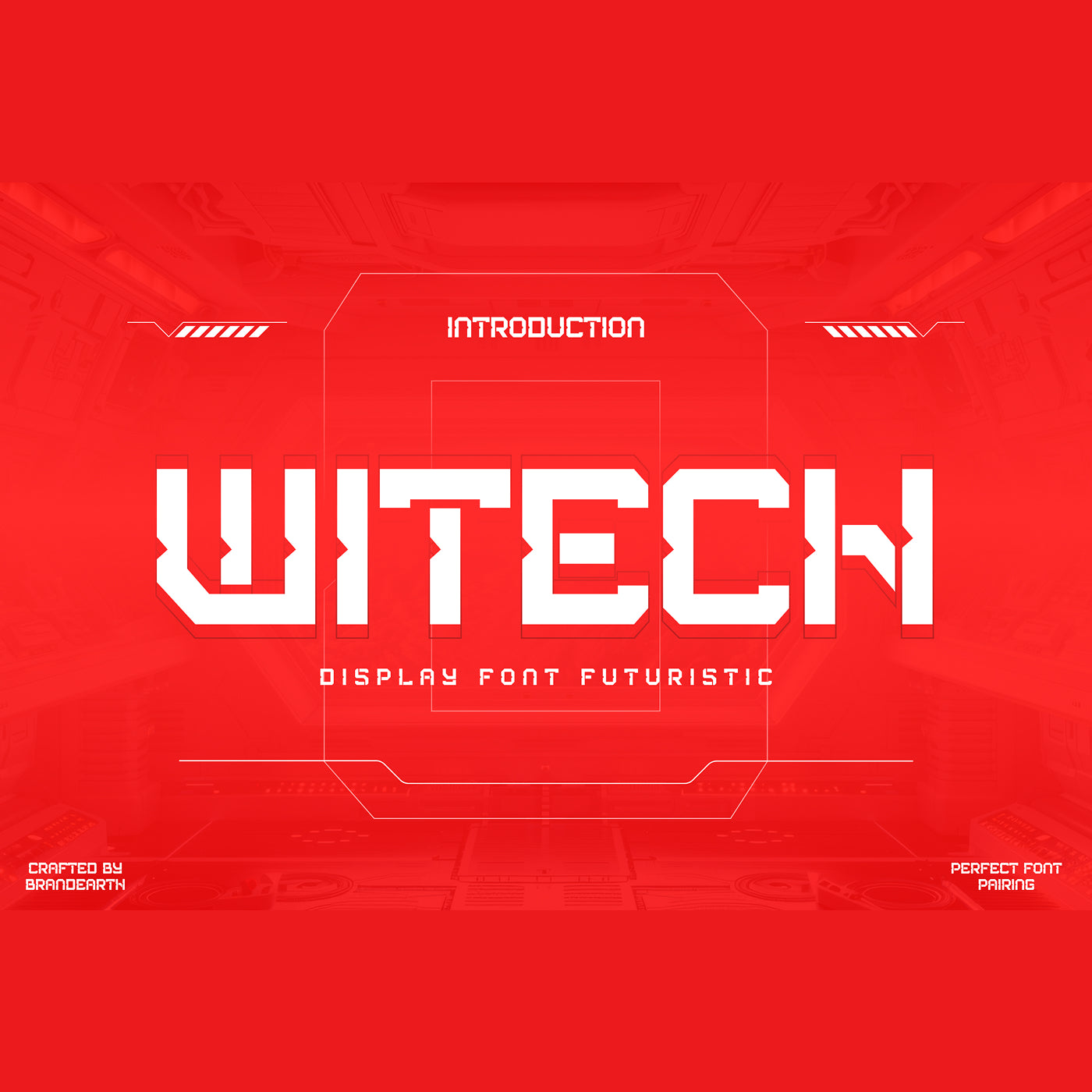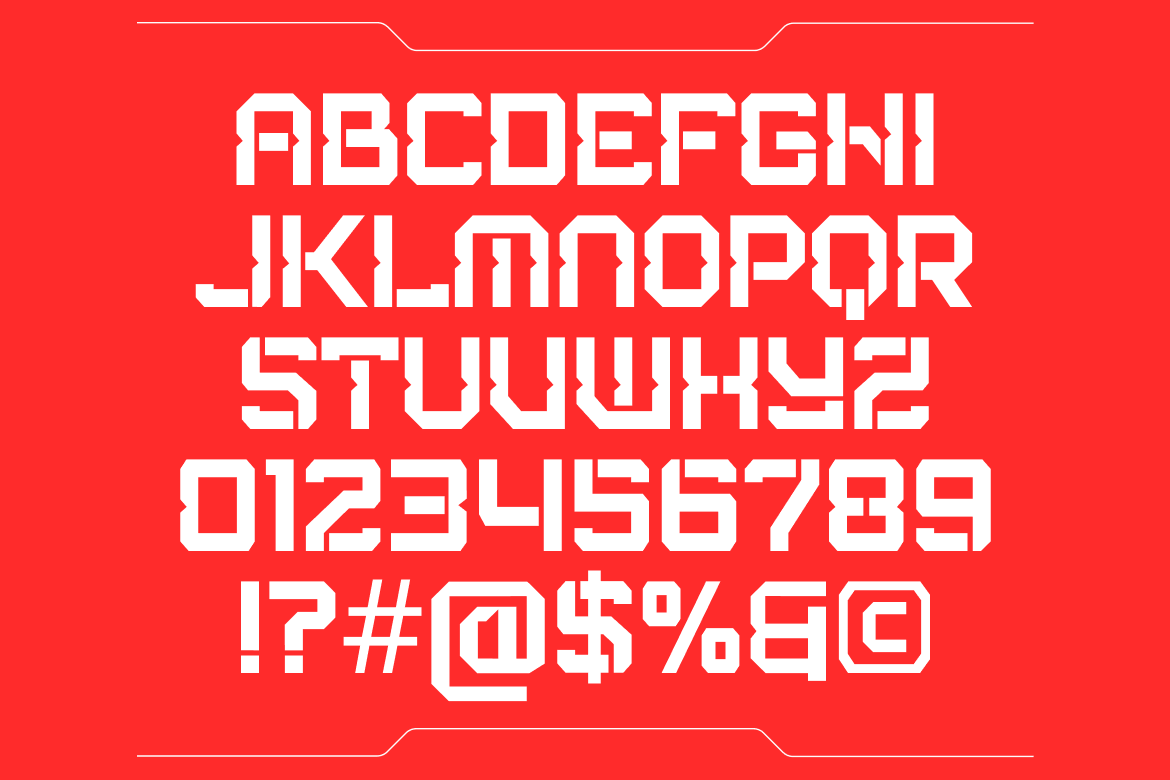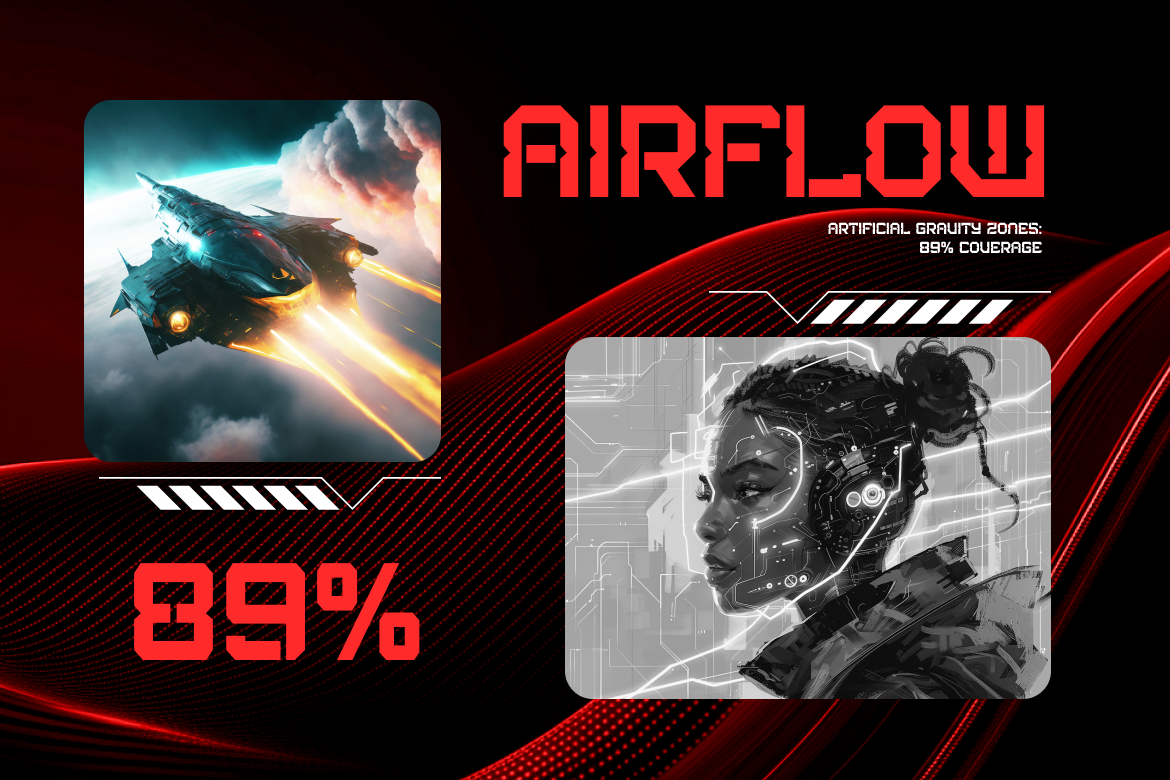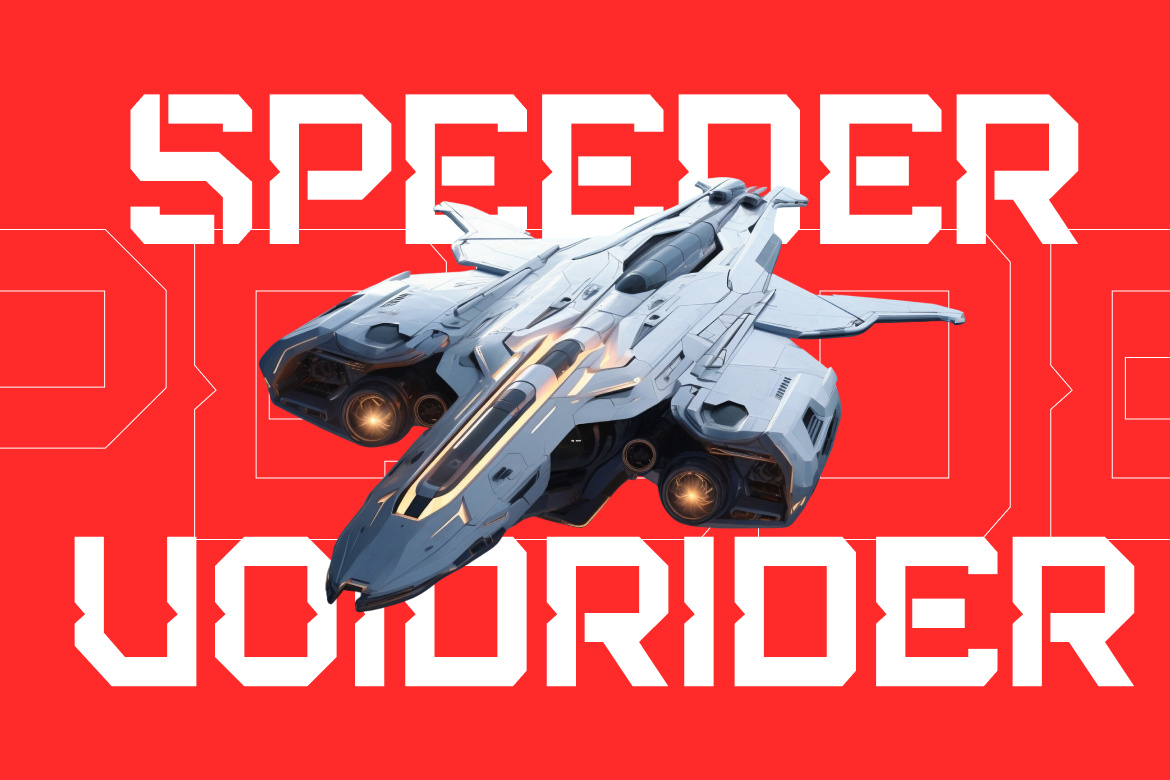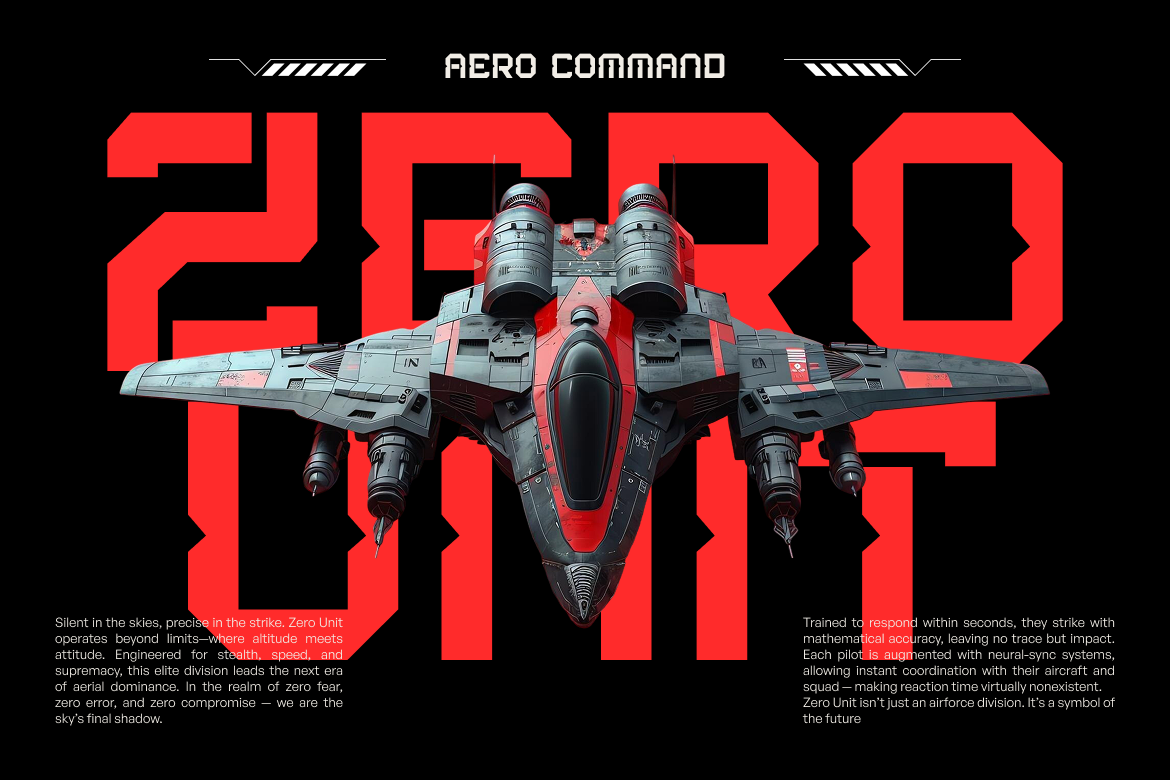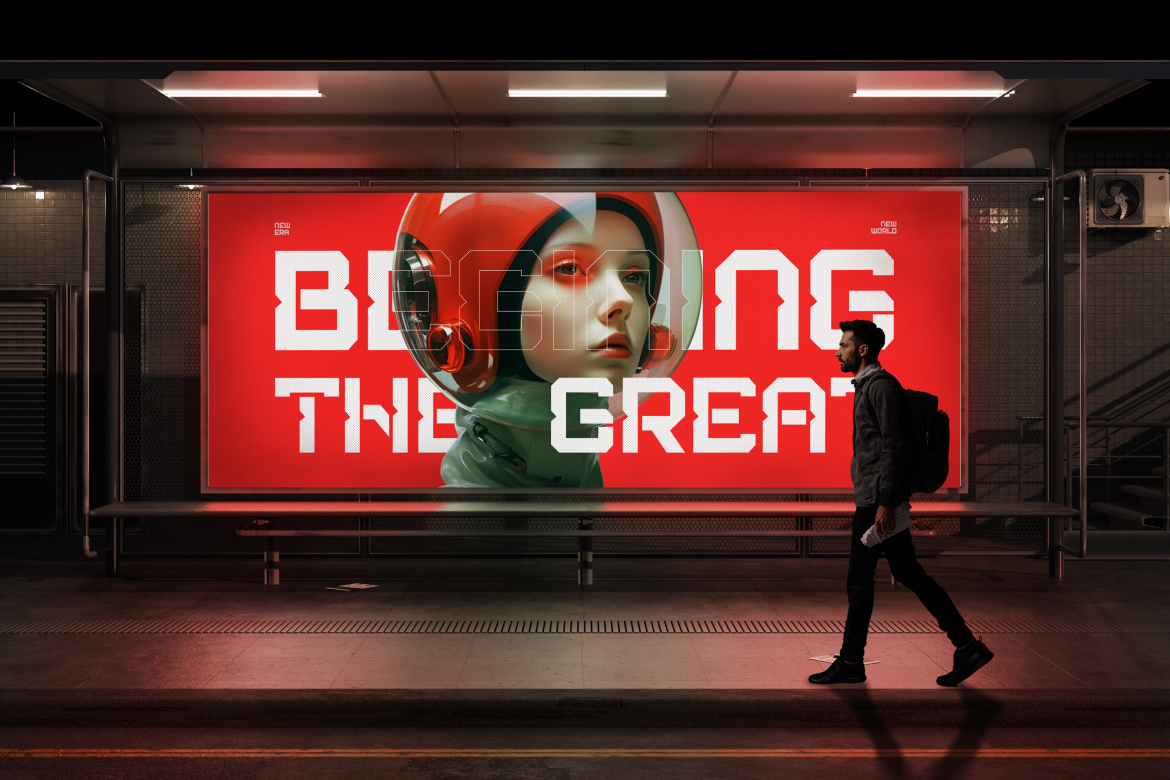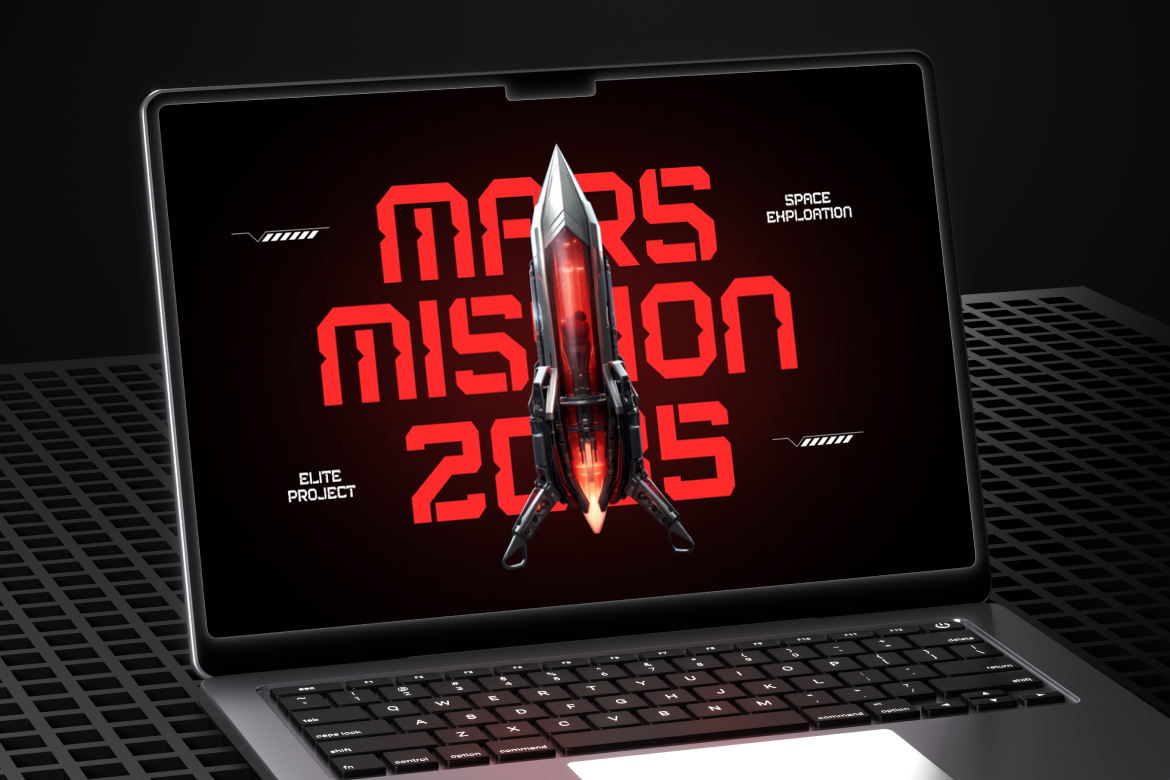
Witech Display Futuristic Font
Witech is a bold futuristic display font inspired by technology, robotics, and digital environments. Featuring angular forms, sharp terminals, and a solid geometric structure, Witech is perfect for sci-fi themes, game titles, tech branding, and user interface designs. Its strong presence and high readability make it ideal for modern posters, esports identities, and cyber-themed visuals. With a style that reflects innovation and strength, Witech brings a high-tech edge to any design, making it the perfect choice for projects that demand a powerful and forward-looking aesthetic.
Witech is a bold display font featuring angular forms, sharp terminals, and a geometric structure. It includes uppercase and lowercase characters, numerals, and punctuation, available in TTF, OTF, and WOFF formats.